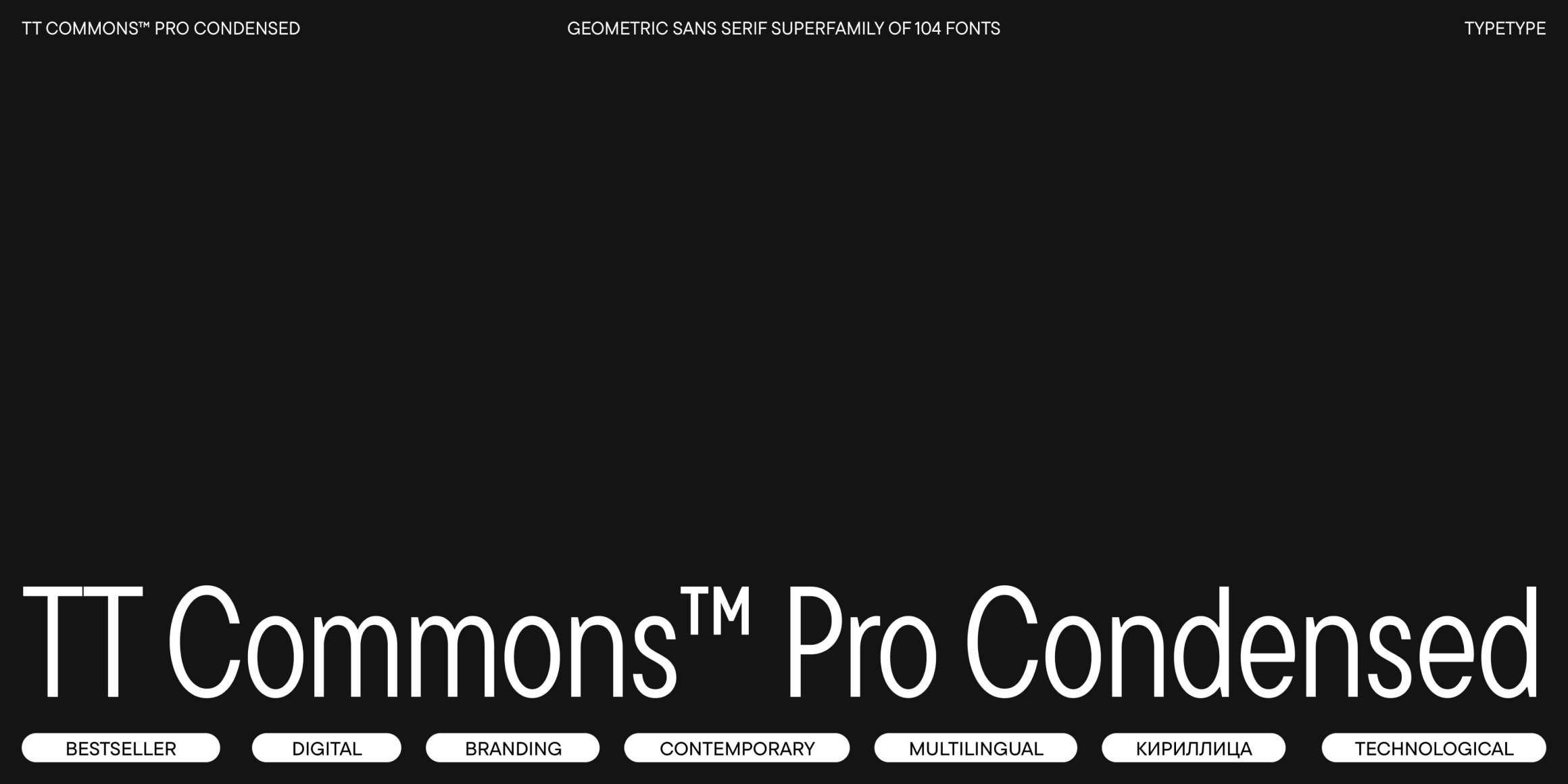
TT Commons™ Pro has become our best seller for a reason: its range of applications knows no bounds, and the possibilities are practically endless! This font is utilized in a variety of contexts and fields, from tech firms and clothing brands to charities, food items, and many others. If you need an all-purpose typeface that is well-suited for both day-to-day tasks and creative designs—you have found it!